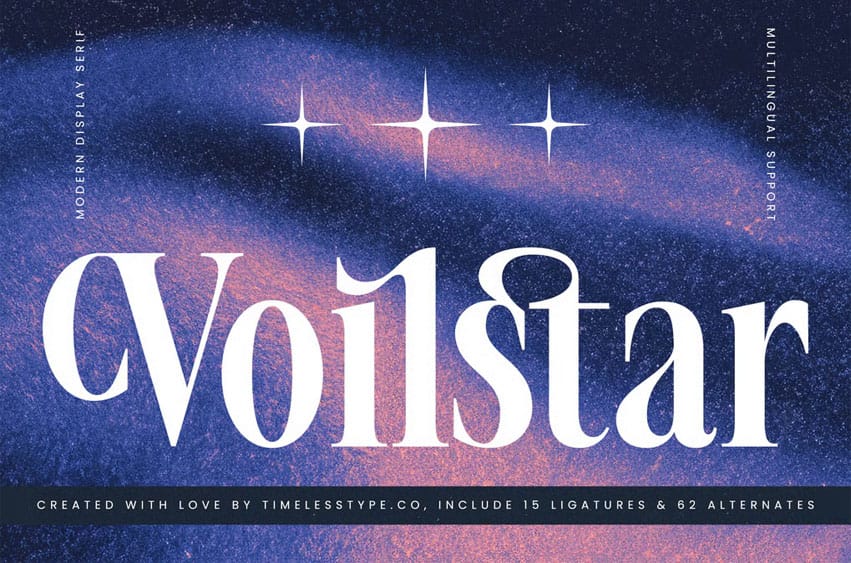
Voilstar Font is a modern display serif font that blends cosmic elegance with editorial sophistication. Featuring 15 ligatures and 62 alternates, this typeface delivers graceful contrast and refined curvature — perfect for branding, luxury packaging, posters, and magazine titles that need a bold yet elegant personality.
Inspired by celestial aesthetics and high typography, Voilstar combines artistry with clarity. Every stroke and curve evokes modern opulence, making it a perfect choice for designers who want their work to shine with both precision.